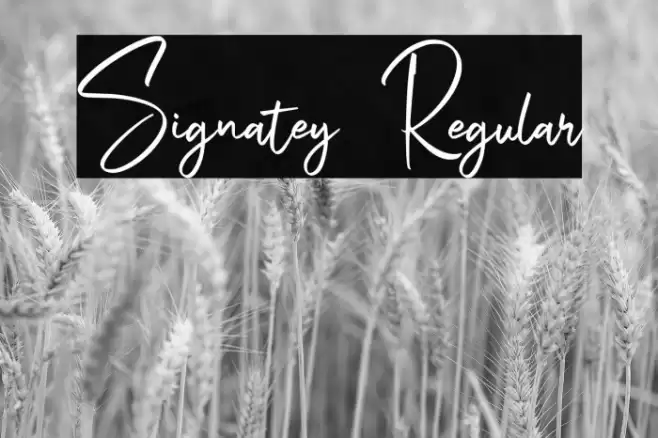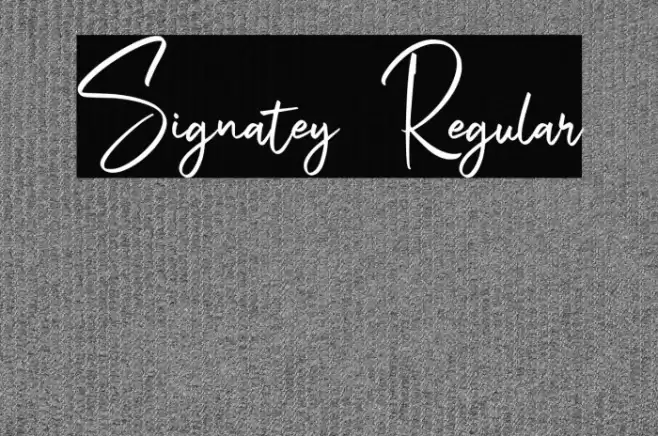
Signatey Regular Font
Signatey Regular Description
This font features a handwritten style with a casual and flowing appearance. The uppercase letters are tall and slightly narrow, with a playful and dynamic stroke that gives them a lively character. The lowercase letters maintain a consistent style, with smooth curves and a natural, cursive flow. The overall design is elegant yet informal, making it suitable for projects that require a personal touch. The absence of special characters suggests a focus on simplicity and readability. The font's unique charm lies in its ability to convey a sense of warmth and approachability.
A casual, handwritten font with a lively and flowing style from Uncategorized fonts.
- Proposed Projects: Ideal for personal branding, invitations, greeting cards, and social media graphics.
- Overall Style: Casual
- Use Case: Logos, Invitations, Social Media